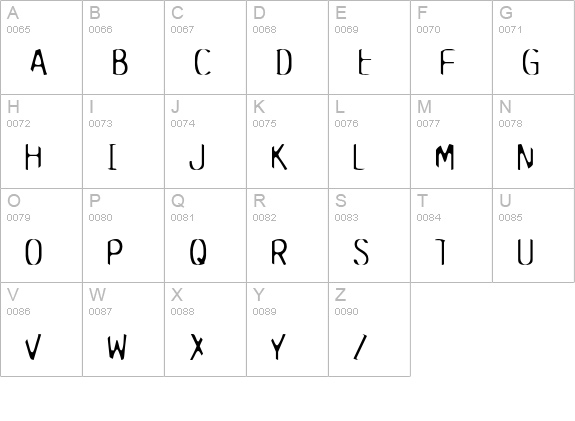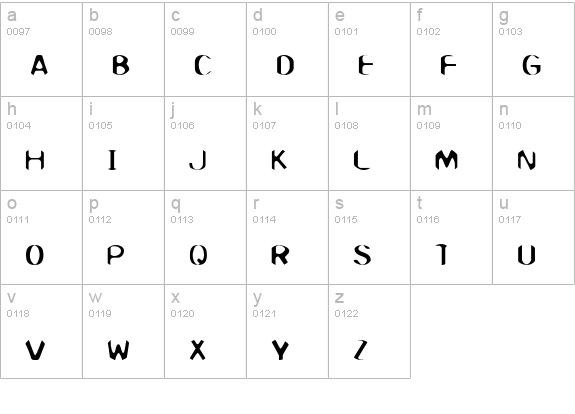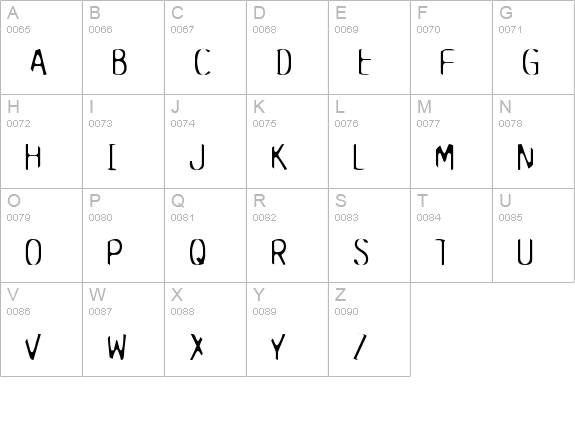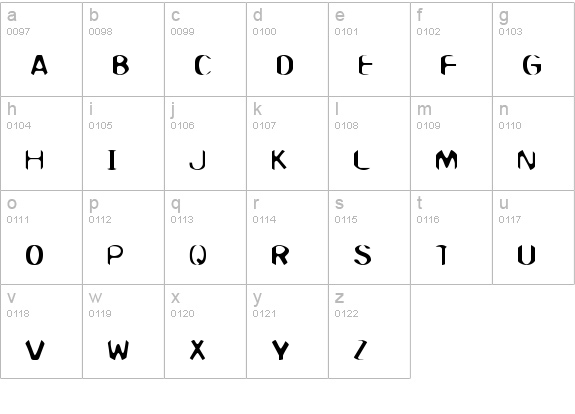
Pure-CircuitCap Font Details
Pure-CircuitCap font is a modern and sleek typeface that combines sharp edges with a minimalist design. This font is perfect for creating a clean and professional look in your designs. The geometric shapes and clean lines of Pure-CircuitCap make it ideal for branding, logos, headlines, and more. One of the best features of Pure-CircuitCap font is that it is completely free to download. You can easily access this versatile font at FontsMarket.com. Whether you are a designer, artist, or simply someone looking to enhance your projects with a stylish font, Pure-CircuitCap is a great choice. Download it today and add a touch of sophistication to your designs.